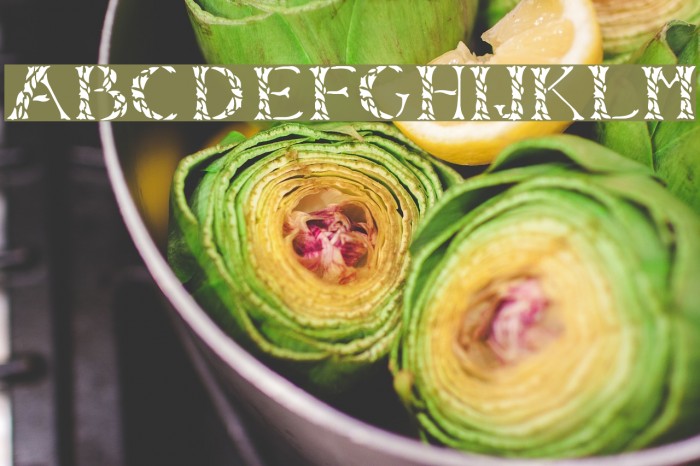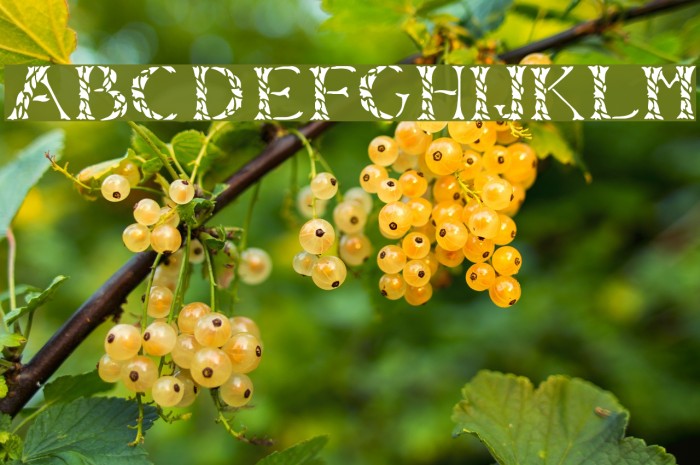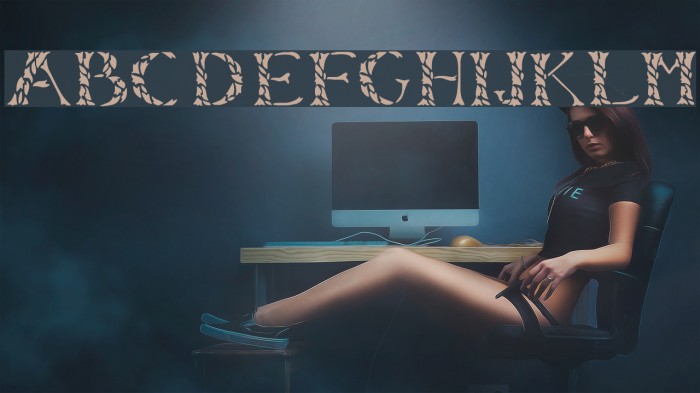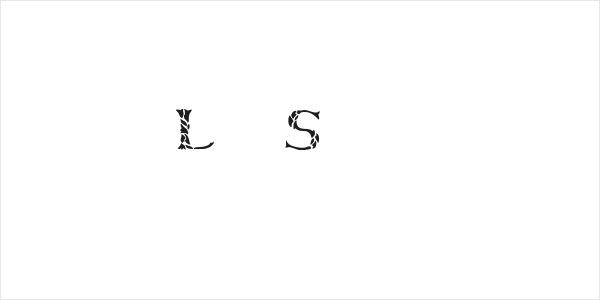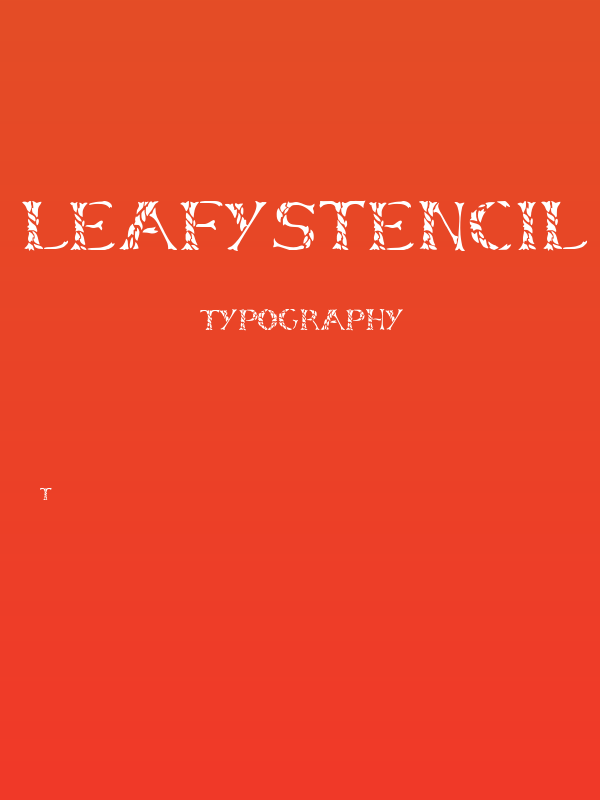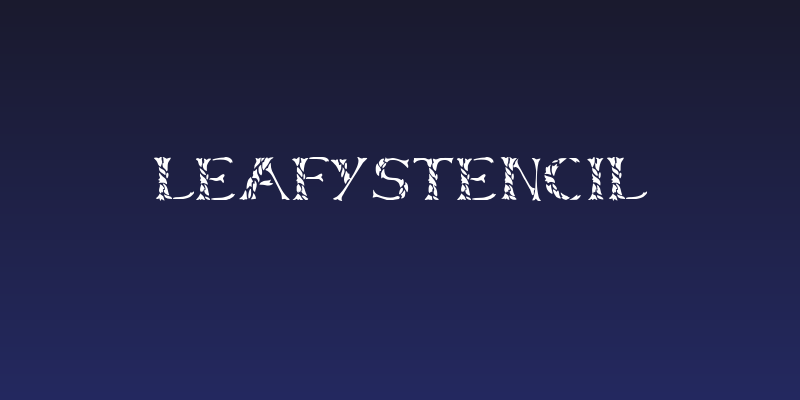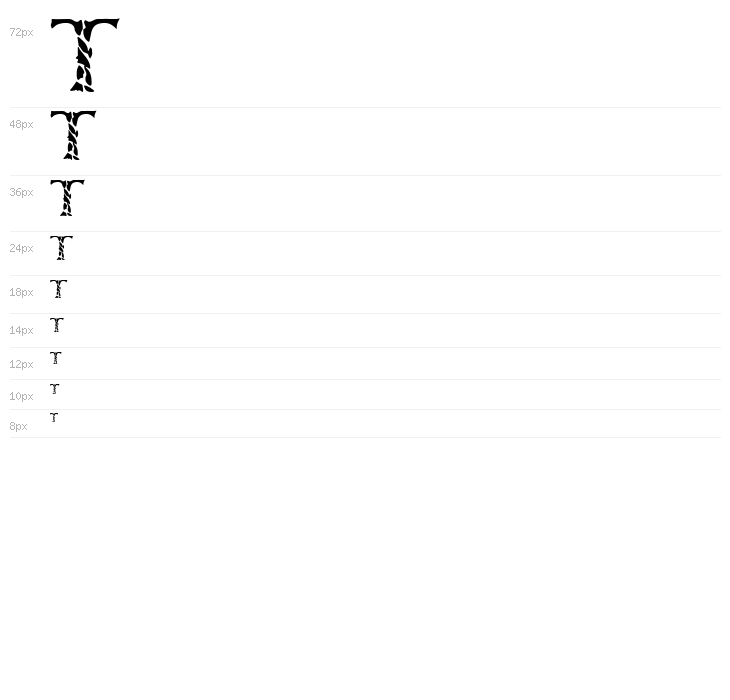
LeafyStencil Font
LeafyStencil Description
This font features a unique stencil design with intricate leaf patterns embedded within each character. The letters are bold and decorative, making them stand out with a natural, organic feel. The leaf motifs create a sense of movement and texture, adding a distinctive touch to the overall appearance. This font is ideal for projects that require a nature-inspired or eco-friendly aesthetic. Its boldness ensures readability while the decorative elements provide visual interest.